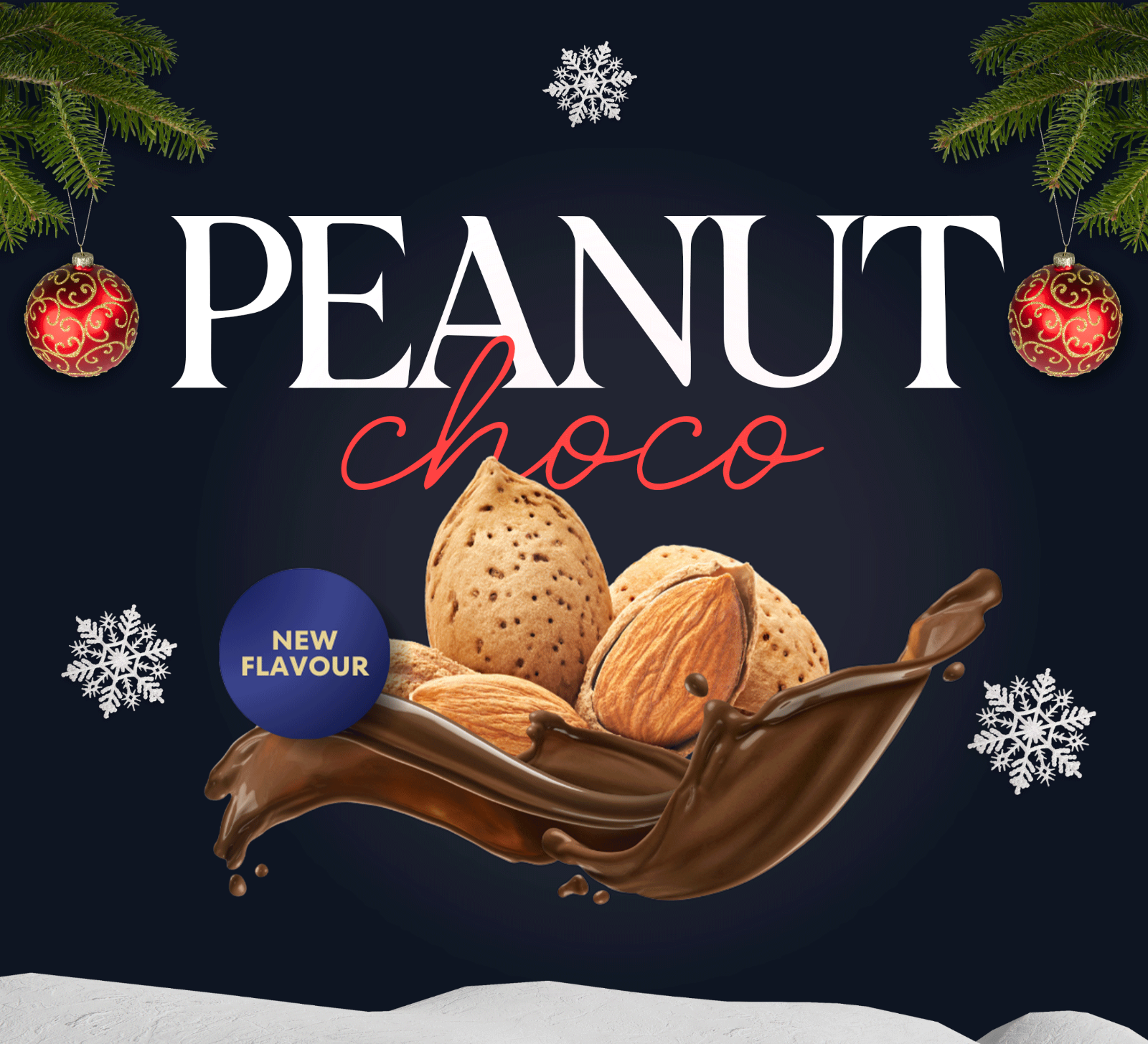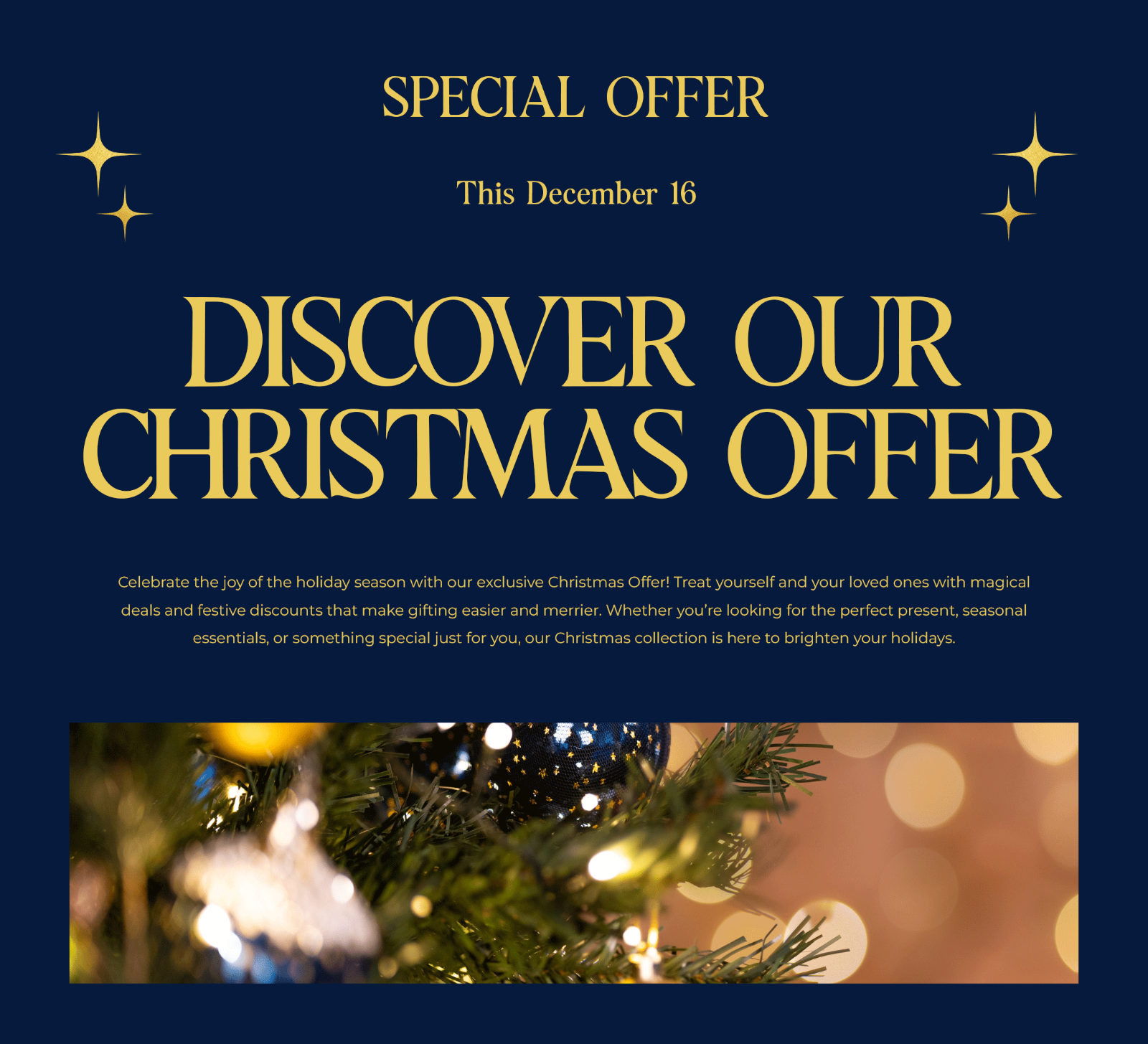
MarketplaceFontsBerrys Christmas – Modern Christmas Font Duo
Berrys Christmas is a festive font duo with a smooth script style and a modern holiday feel. Its elegant and flowing letterforms make it perfect for creating warm, cheerful, and stylish Christmas designs.
• Christmas cards
• Holiday invitations
• T-shirts & hoodies
• Gift bags
• Handmade products
• Stickers
• Seasonal branding
• Christmas merchandise
Compatible with Windows and Mac, Berrys Christmas is a great choice for holiday projects that need an elegant, festive, and modern handwritten look.